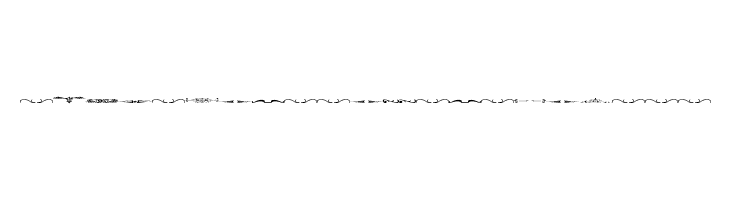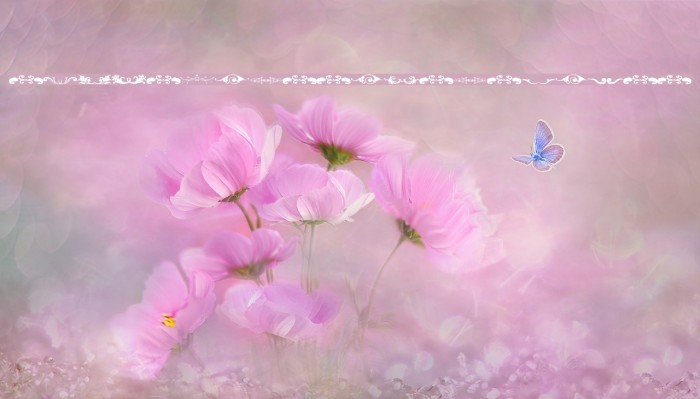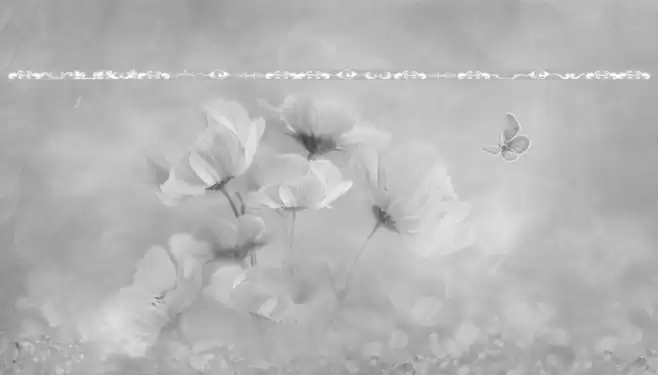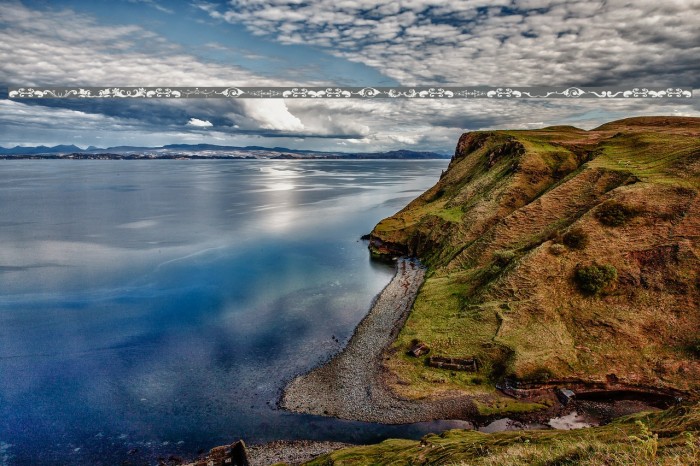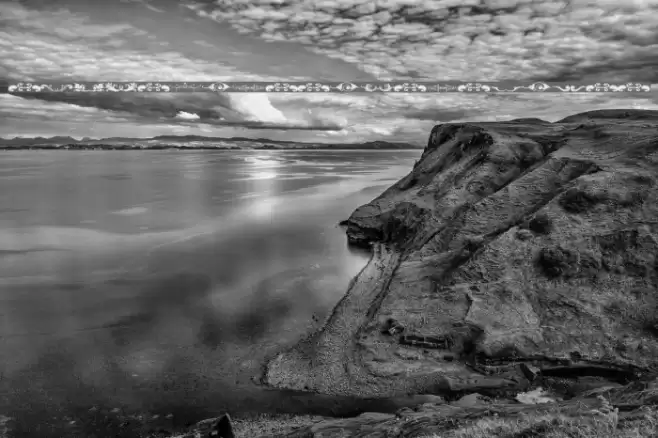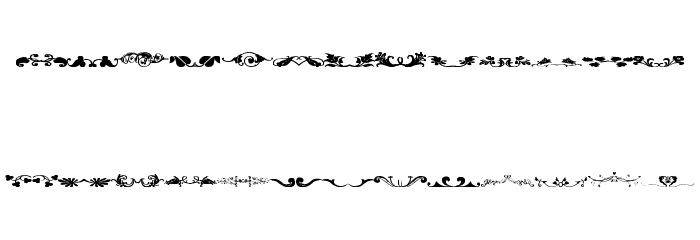
Sughayer Separates 1 Font
Sughayer Separates 1 Description
This collection features an array of ornate and decorative separators, each with intricate detailing and elegant flourishes. The designs range from symmetrical patterns to more elaborate, flowing motifs, perfect for adding a touch of sophistication to any project. The elements are reminiscent of vintage and classical styles, with a focus on ornamental beauty and artistic expression. These separators can be used to enhance the visual appeal of documents, invitations, or any creative work that requires a decorative touch.
| Overall Style | Vintage |
| Use Case | Decorative elements |
| Proposed Projects | Ideal for wedding invitations, certificates, decorative borders in books, and elegant stationery design. |